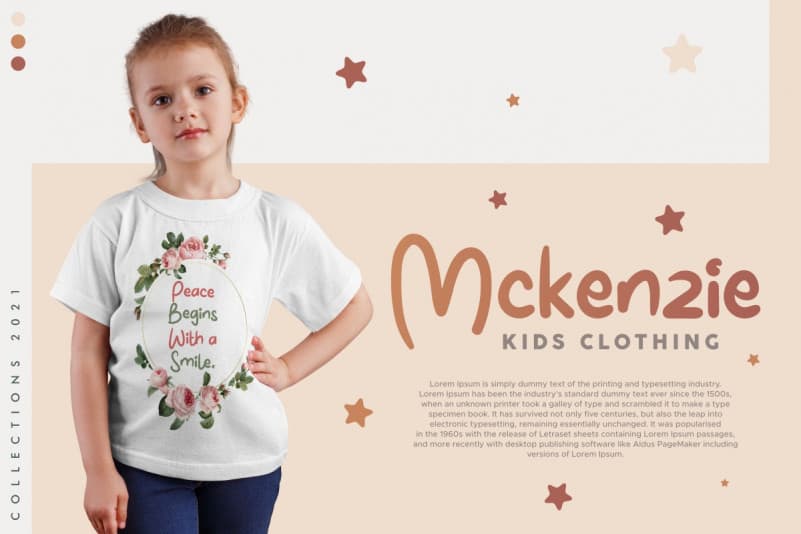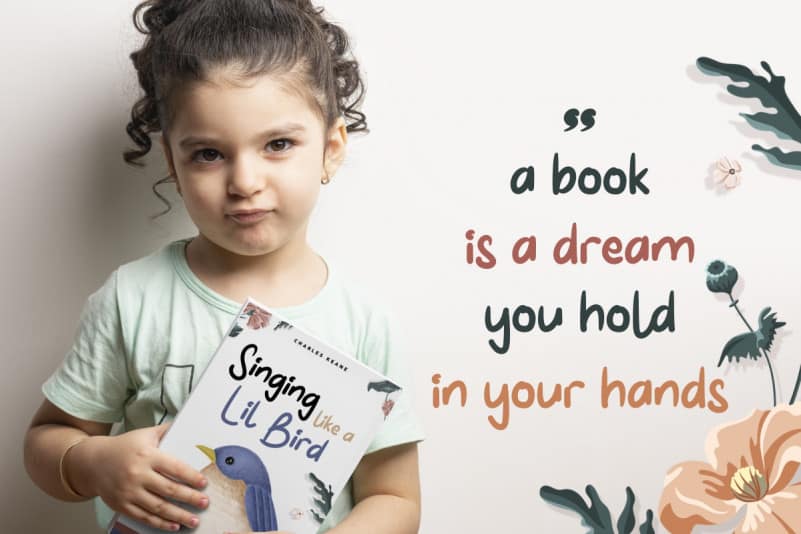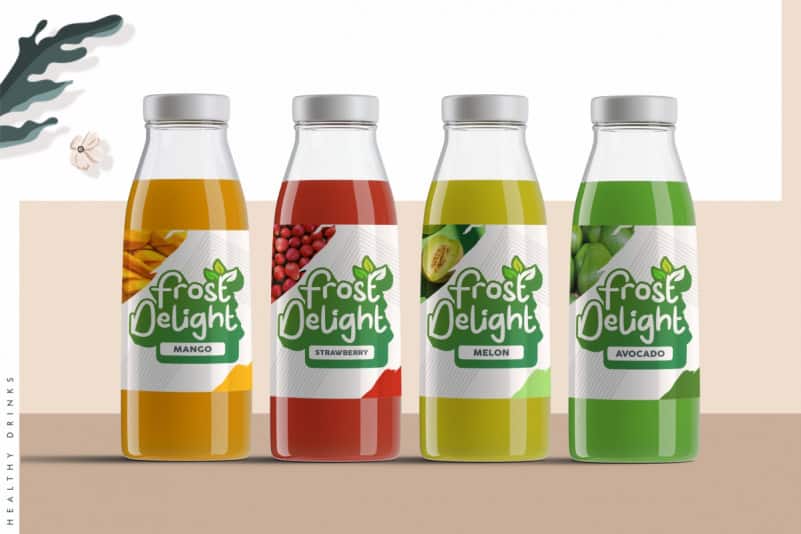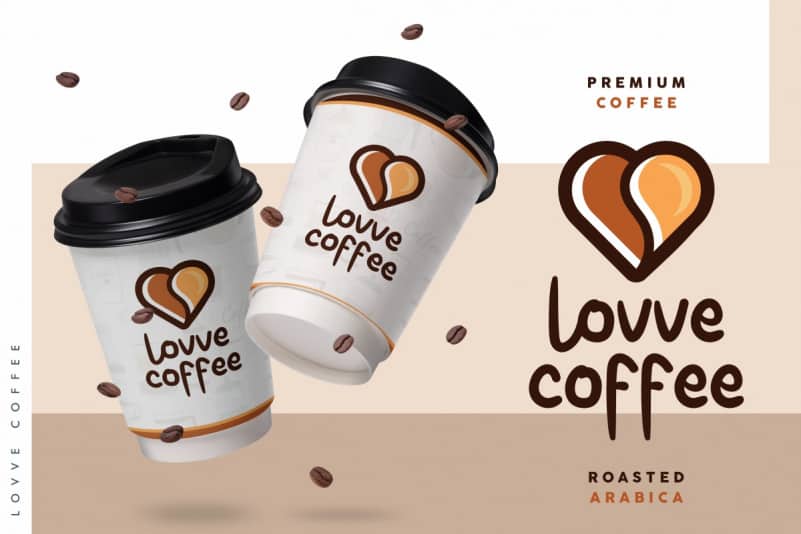
Cute Smile Display Font
Cute Smile Display Font is a fun playful handwriting font with simple comic inspired style. This font is crafted carefully in every its single scratch, created to look as close to a natural handwritten script so that it can create the perfect combination on each glyph. When we make this font, we really want to create a touch that is so free-flowing that it gives a natural impression on its use later. This awesome script is for anyone who are needing of fun and stylish designs.
Cute Smile Display Font includes full set of Uppercase and Lowercase Basic Characters, Numerals and Punctuation. Also it contains ligatures and alternates characters to perfectly make natural handwriting look that add more beautiful and aesthetic fonts to perfect your extraordinary project. Cute Smile Handwriting Font will be awesome for invitations, events, movie, music, children book, school, kids products, social media etc